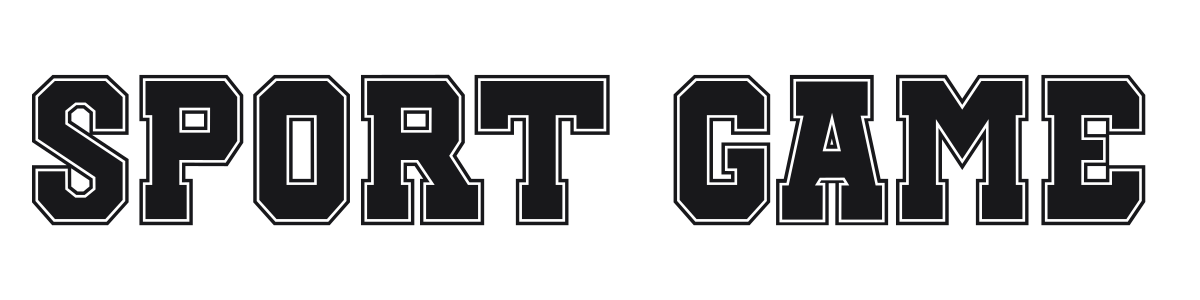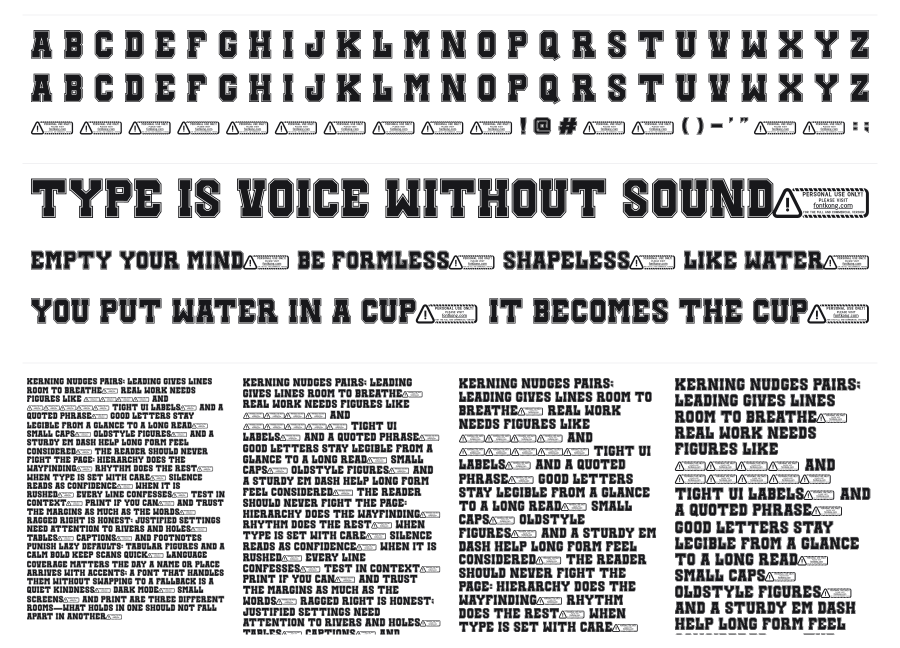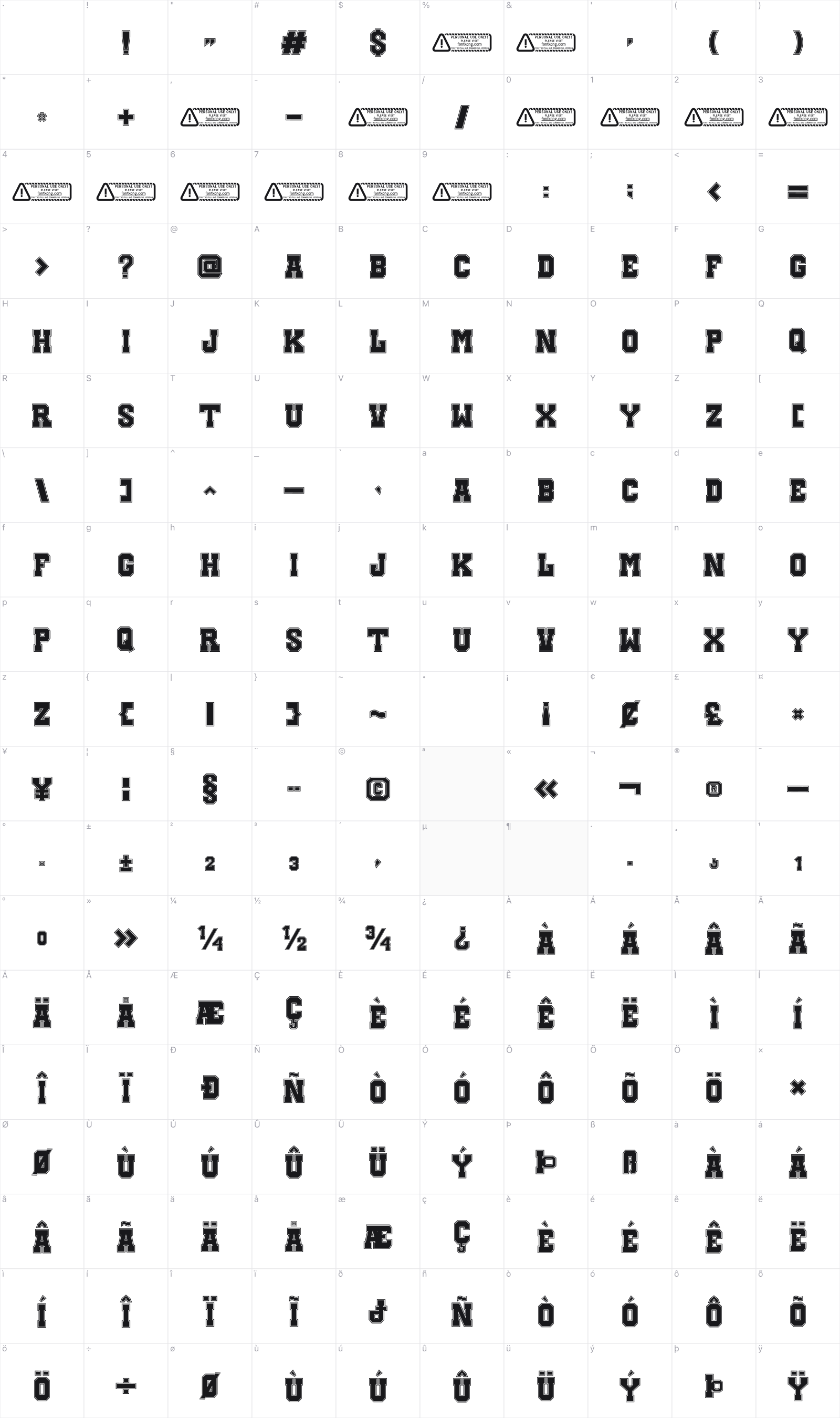
Sport Game
Sport Game is a heavy collegiate slab-serif built on the classic American varsity lettering tradition. The bold inline outline treatment gives each character a layered, three-dimensional quality that reads instantly as athletic or competitive. It works at large sizes for team branding, esports graphics, posters, and apparel.